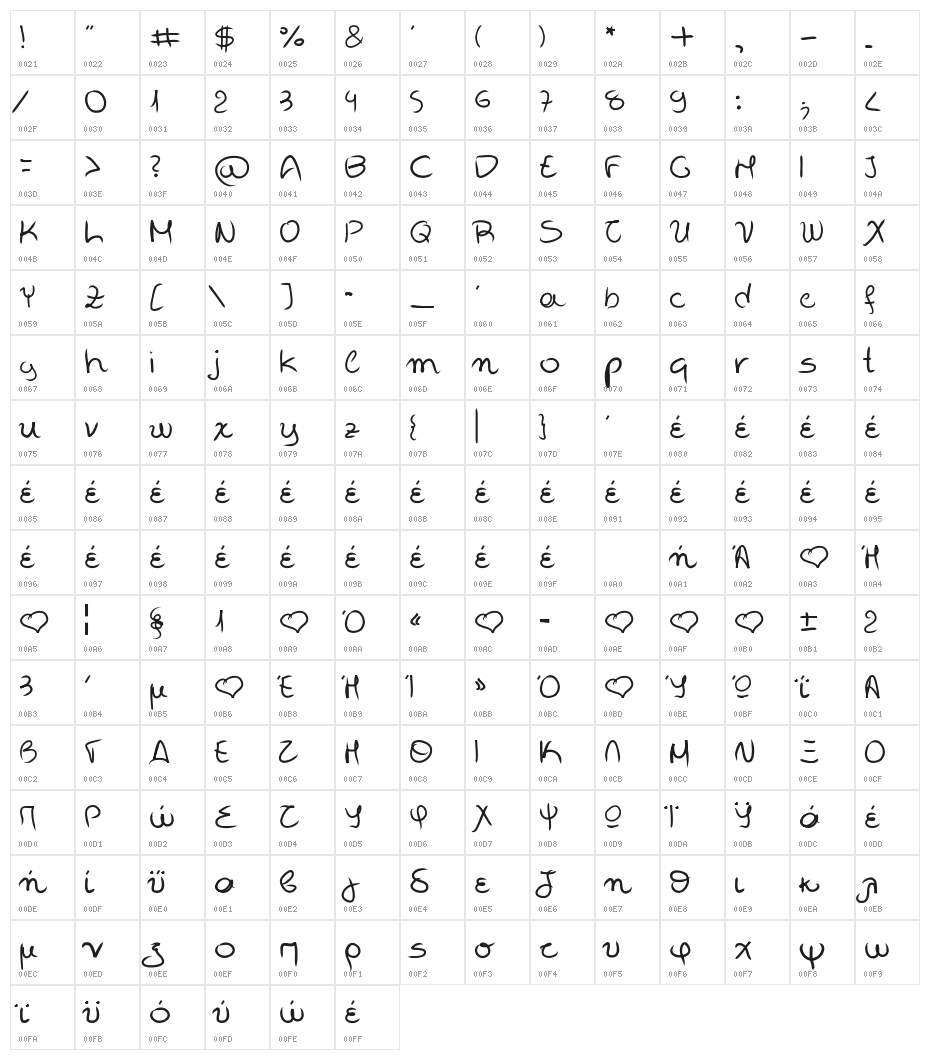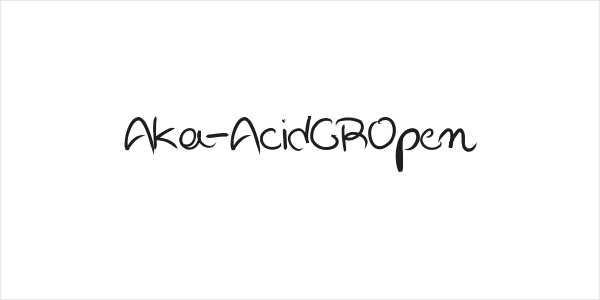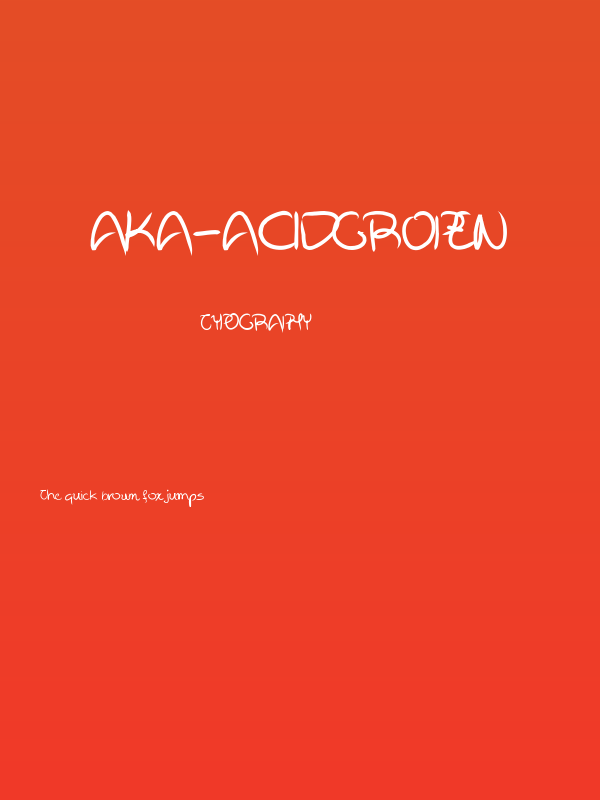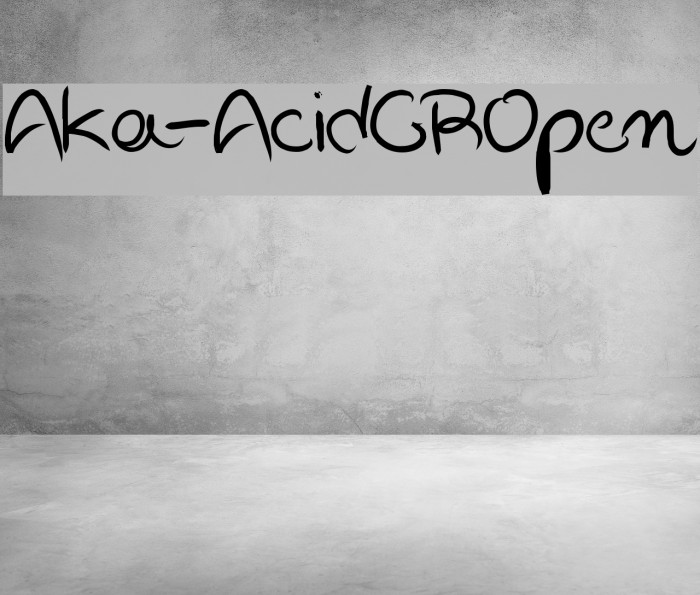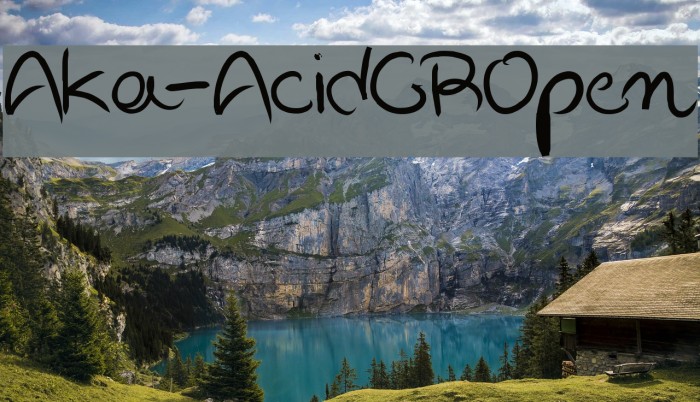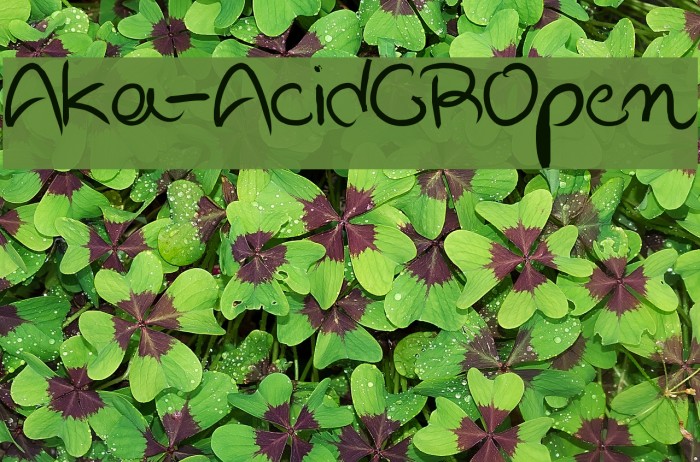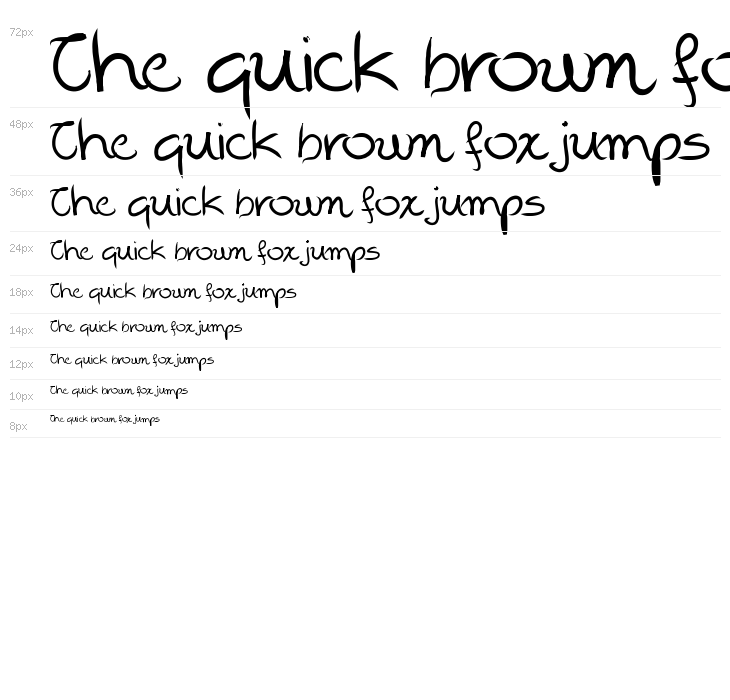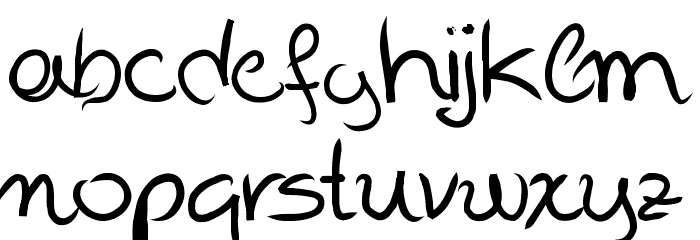
Aka-AcidGROpen Font
Aka-AcidGROpen Description
This font features a dynamic and fluid style with a handwritten appearance. The characters are bold and slightly slanted, giving them an energetic and informal look. The strokes vary in thickness, adding a playful and artistic touch. The uppercase letters are tall and expressive, while the lowercase letters maintain a consistent flow. Numbers and special characters follow the same lively design, making the font suitable for creative and casual projects.
| Proposed Projects | Ideal for creative projects such as posters, invitations, and branding materials that require a playful and artistic touch. |